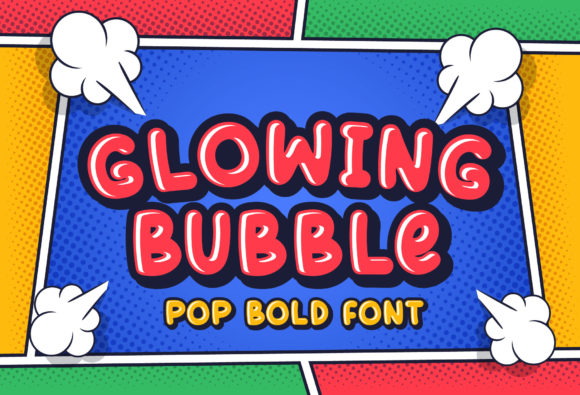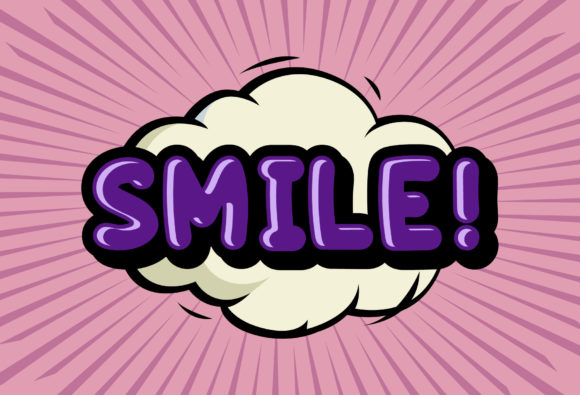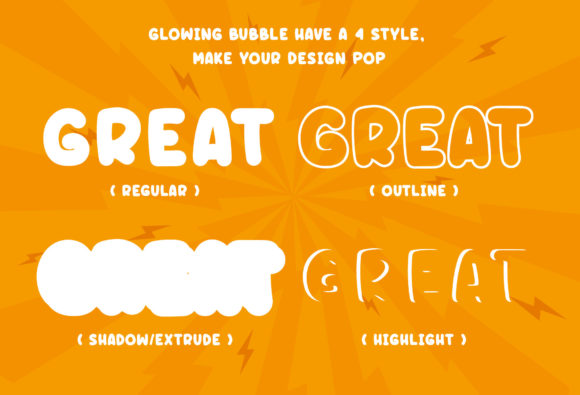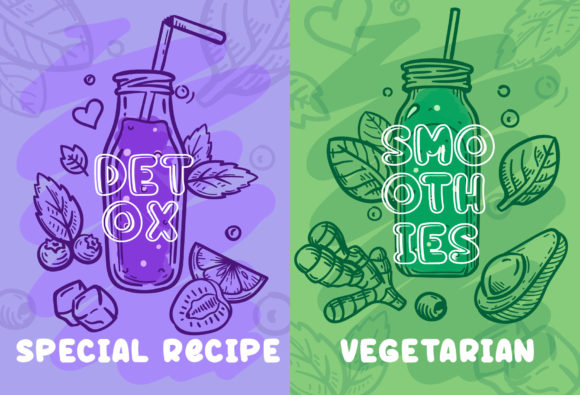
Glowing Bubble Font
About the Glowing Bubble Font
Elevate your designs with Glowing Bubble Font, a font that combines sophistication with readability. Glowing Bubble is a bold, retro font that will really make your creations pop! Perfect for posters or a fun branding project.
Its bold, rounded forms make it ideal for headlines, short impactful statements, and eye-catching logos. Glowing Bubble excels in branding projects that require a retro-futuristic or playful feel, particularly for products targeting younger demographics. Avoid using it for body text or lengthy paragraphs; its weight and character spacing aren’t suited for readability in extended blocks of text.
The font’s retro-futuristic energy pairs well with clean sans-serif fonts like Futura or Helvetica for a balanced contrast. For a more playful approach, consider pairing it with a handwritten script font, but choose one with a clear, legible form to maintain visual clarity. Geometric sans-serifs could also work for a modern, slightly edgier look.
Glowing Bubble’s core personality is bold and playful, yet retains a degree of retro sophistication. This makes it suitable for brands focused on fun, nostalgia, or a vibrant, energetic image.
Glowing Bubble Font Usage Examples
Glowing Bubble Font Example